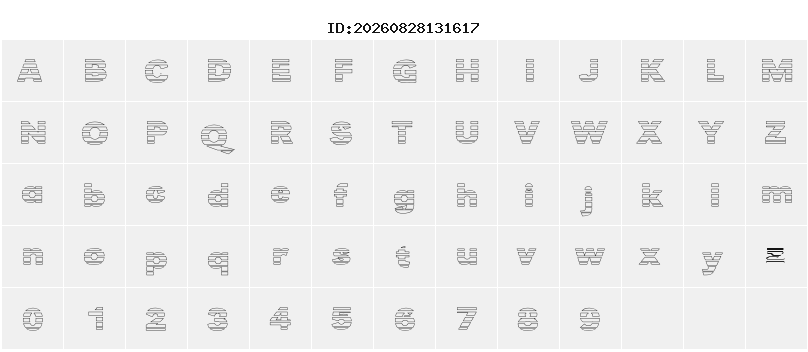
• Font Name: TomBeckerGradoE
About TomBeckerGradoE.ttf
TomBeckerGradoE.ttf is a modern, elegant sans-serif font designed for ultimate readability and visual harmony. Perfect for branding, headlines, web design, and print materials.